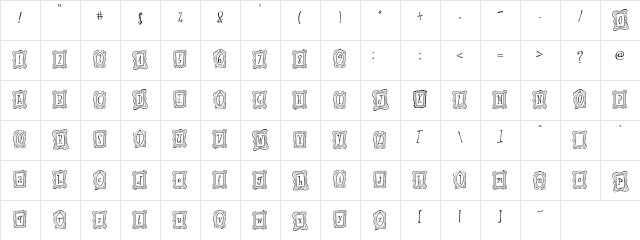
LDJ Antique Frames Regular
Design Context for LDJ Antique Frames
LDJ Antique Frames wears its vintage influences proudly, with letterforms that recall mid-century signage, classic packaging, and nostalgia-driven design.
Font Pairing: Combine LDJ Antique Frames with a simple slab or neutral sans - period-accurate companions reinforce the vintage feel without competing for attention.
Pro Tip: Lean into LDJ Antique Frames's period character by pairing it with aged paper textures, muted colour palettes, and vintage illustration styles.